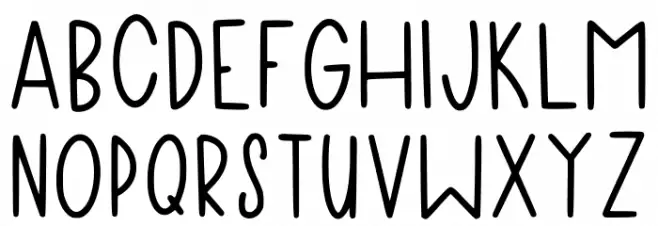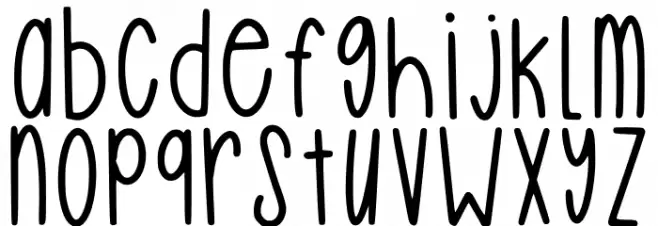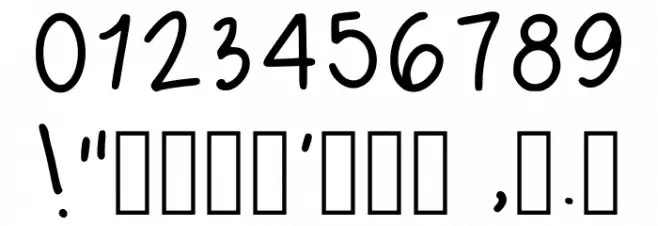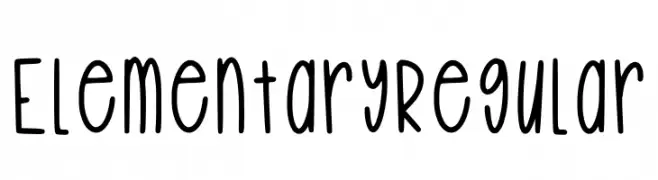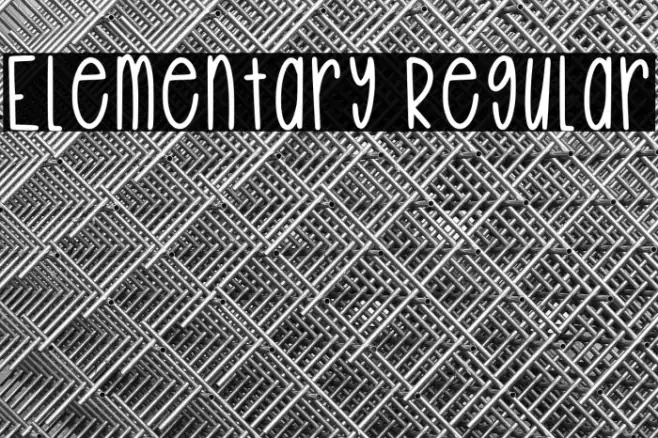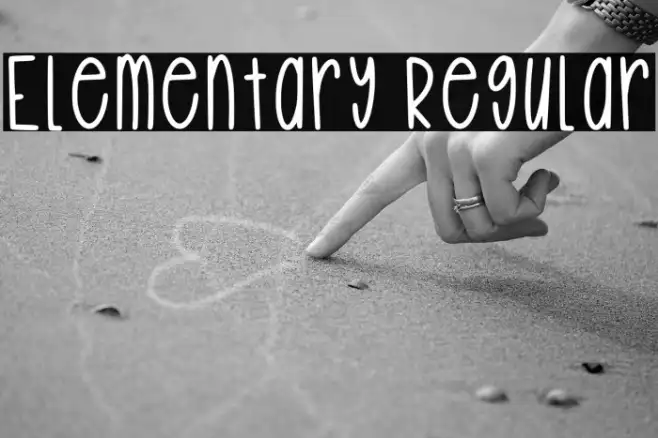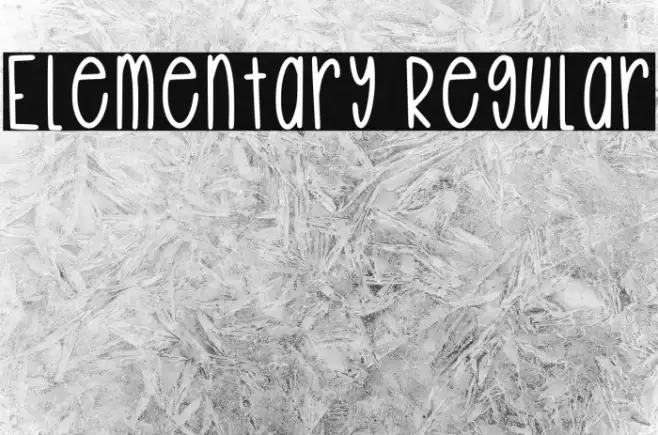
Elementary Regular
A playful and informal handwritten font with rounded edges and a casual style.
Playful handwritten font with rounded edges.
- Proposed Projects: Children's books, casual invitations, playful branding.
- Overall Style: Casual, Playful
- Use Case: Headlines, Informal text, Children's materials